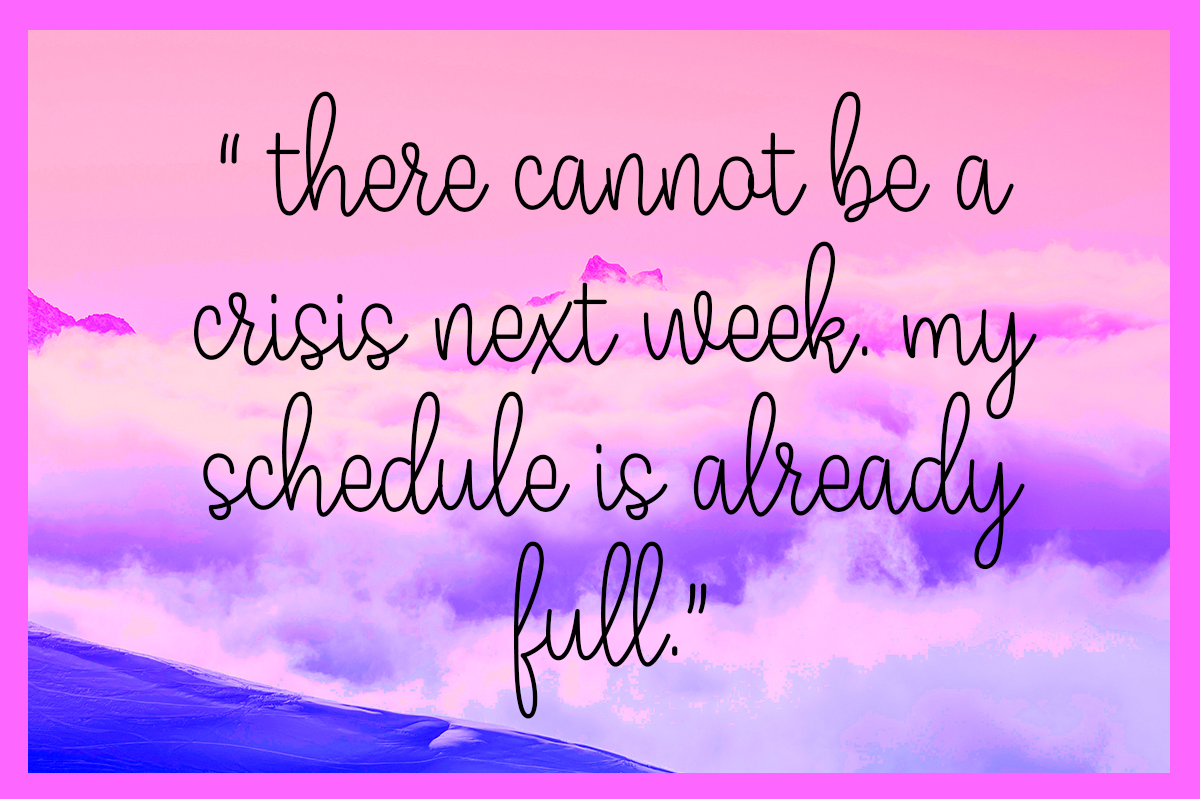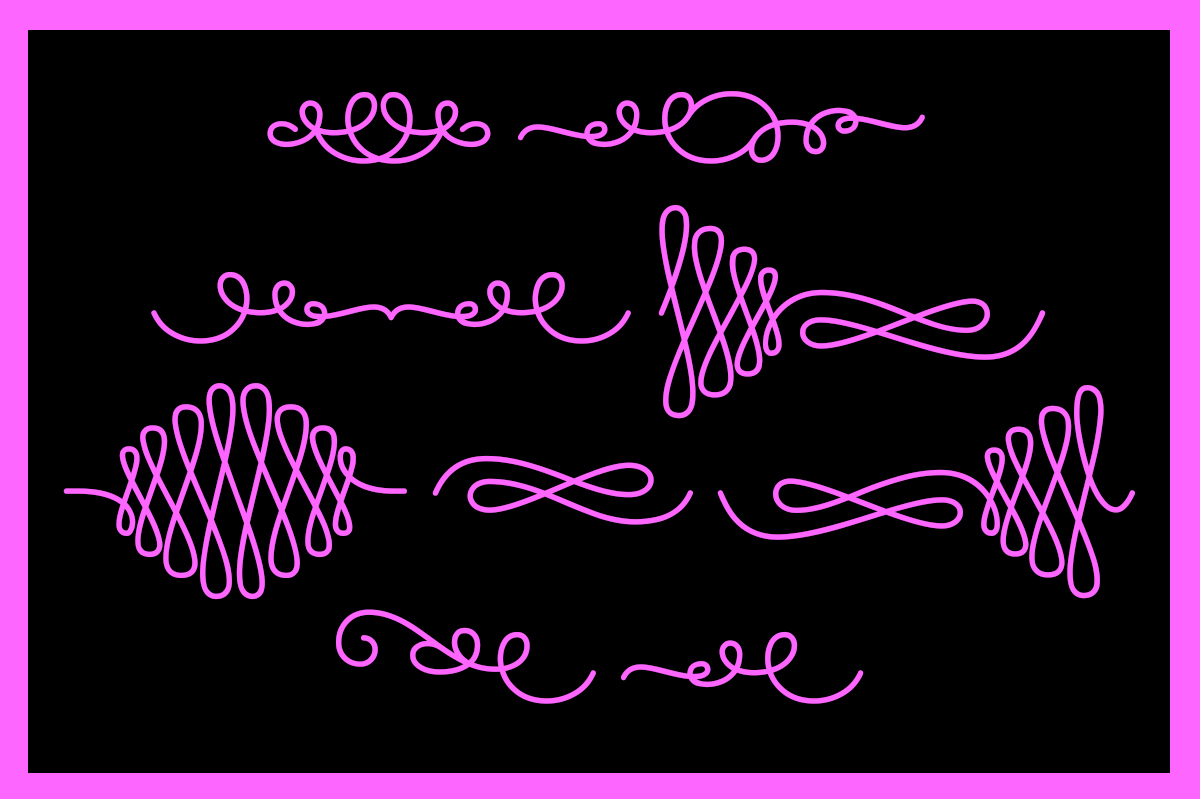
Alara Font
About Alara Font
Alara is a girly and on-trend script font with beautiful swashes that can amplify the style of your designs. This monoline font is a great script that looks both fresh and modern.